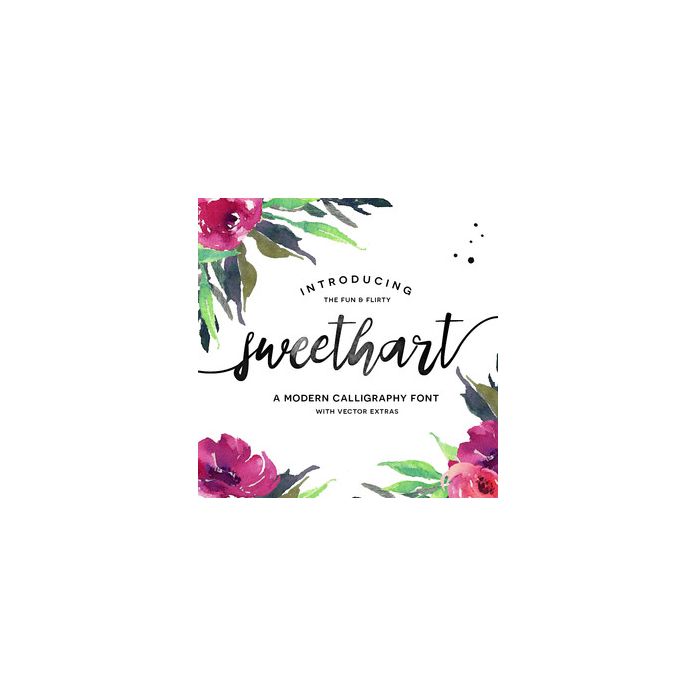
Sweethart is a fun and flirty script with fat-to-thin brush strokes and a bouncy baseline giving it that hand crafted feel. Comes with a full set of capitals, lowercase, numerals, punctuation, ,and some international language support.